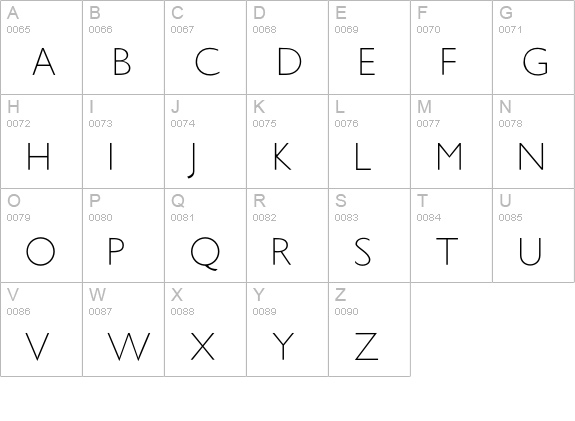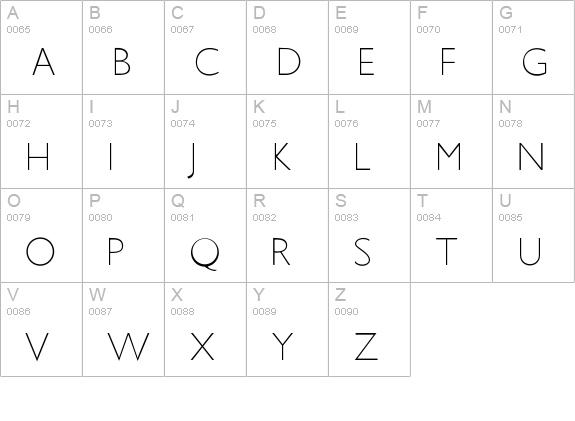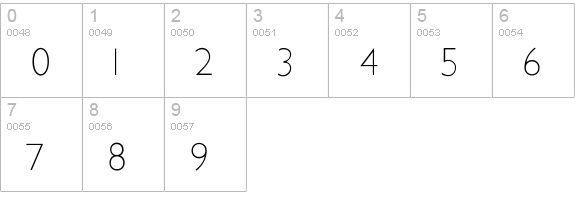
SansMaster Font Details
Introducing SansMaster, a versatile and modern font that will surely elevate your designs to new heights. With its clean and sleek lines, this font exudes sophistication and professionalism. Whether you're creating a logo, designing a website, or working on a print project, SansMaster is the perfect choice to make your text stand out. What sets SansMaster apart is not only its impeccable design, but also its accessibility. This font is freely available to download at FontsMarket.com, making it easily accessible to designers and creatives of all levels. Say goodbye to limited options and hello to endless possibilities with SansMaster. This font offers a wide range of weights and styles, allowing you to experiment and find the perfect fit for your project. From bold and impactful to light and elegant, SansMaster has it all. Its versatility ensures that it can be used for a variety of purposes, from headlines and body text to captions and quotes. SansMaster is meticulously crafted with attention to detail, ensuring that every character is perfectly balanced and visually pleasing. Its legibility remains intact even at small sizes, making it ideal for both digital and print applications. The clean and consistent letterforms of SansMaster make it a reliable choice for any design project. Designed to make a statement, SansMaster is a font that will leave a lasting impression. Its modern and timeless aesthetic ensures that it will never go out of style. Whether you're aiming for a sleek and minimalistic look or a bold and eye-catching design, SansMaster has got you covered. Experience the freedom and creativity that SansMaster offers. Download this remarkable font for free at FontsMarket.com and unlock a world of design possibilities. With SansMaster, you'll have the tools to create stunning visuals that captivate and engage your audience. Embrace the power of this font and watch your designs come to life.